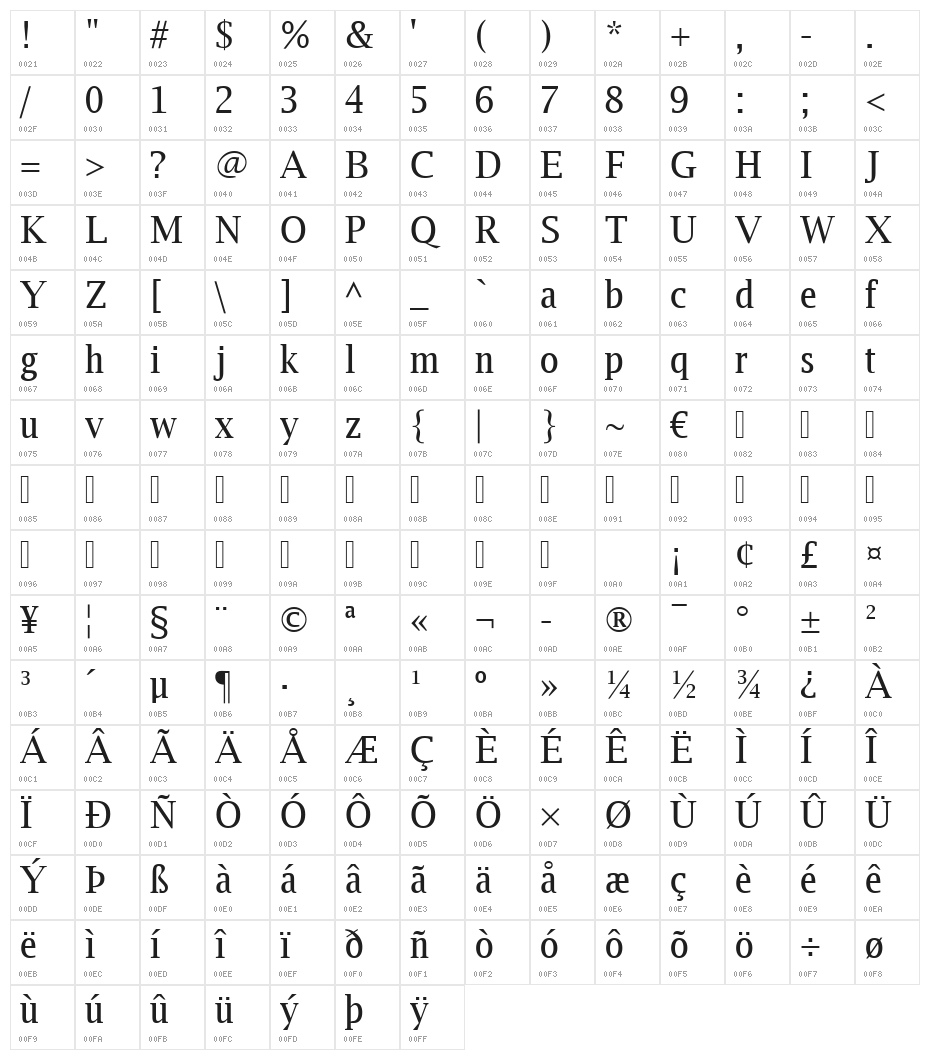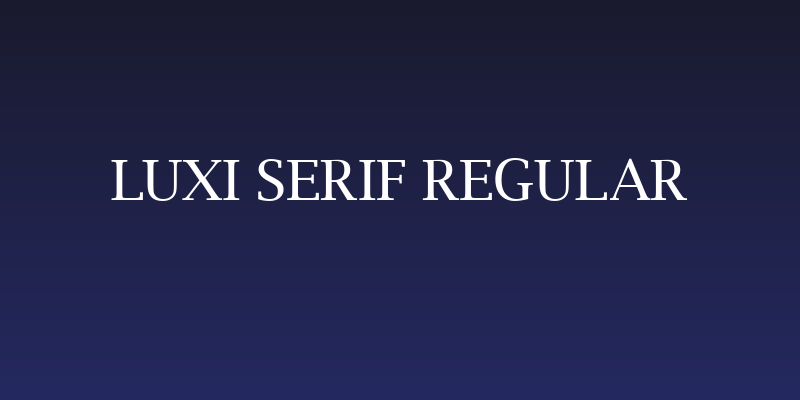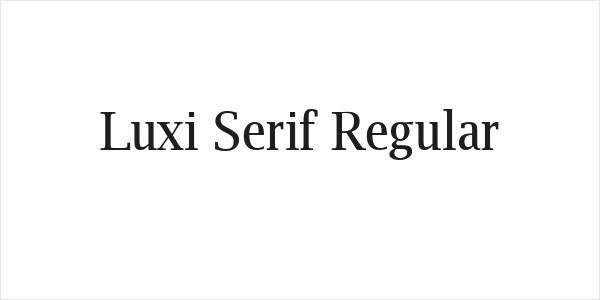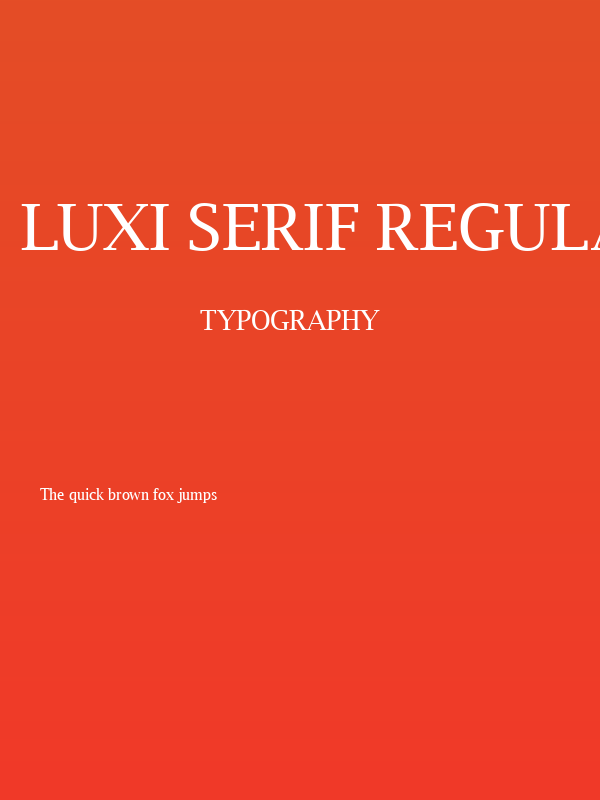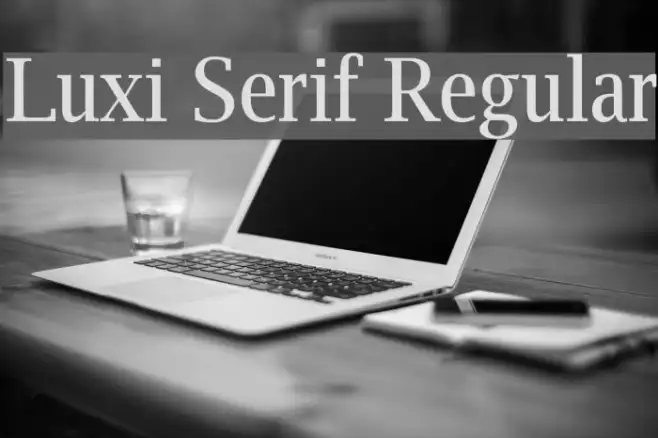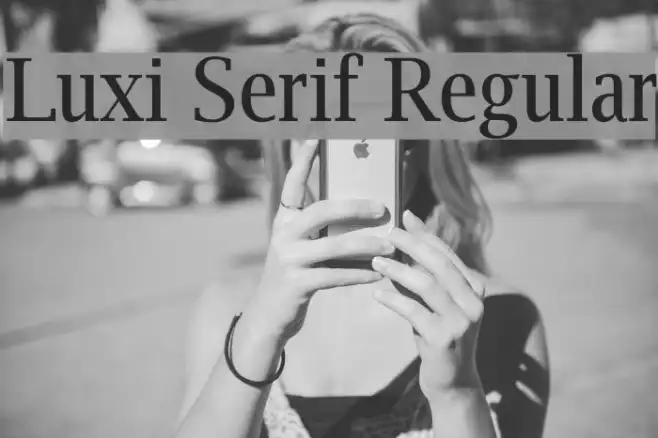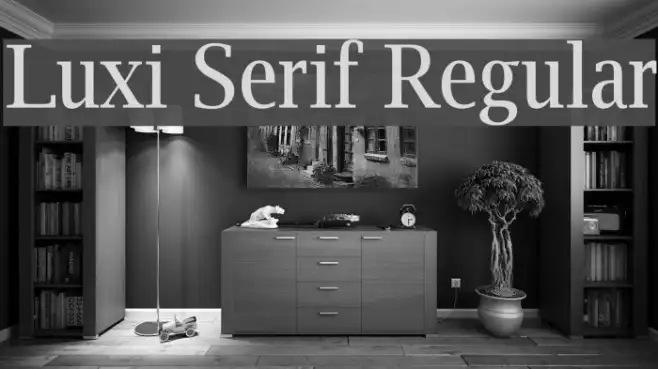
Luxi Serif Regular Font
Luxi Serif Regular Description
This serif typeface exudes a classic and timeless elegance, characterized by its well-defined and balanced strokes. The uppercase letters are bold and commanding, with a traditional serif structure that adds a touch of sophistication. The lowercase letters maintain a consistent style, offering readability and a smooth flow. The numerals are clear and distinct, making them suitable for both formal and informal contexts. Special characters are crafted with precision, ensuring versatility across various applications. The overall design is harmonious, making it ideal for projects that require a touch of class and professionalism.
| Use Case | Body text, Headlines, Editorial design |
| Proposed Projects | Ideal for book typesetting, formal invitations, corporate branding, and editorial design. |